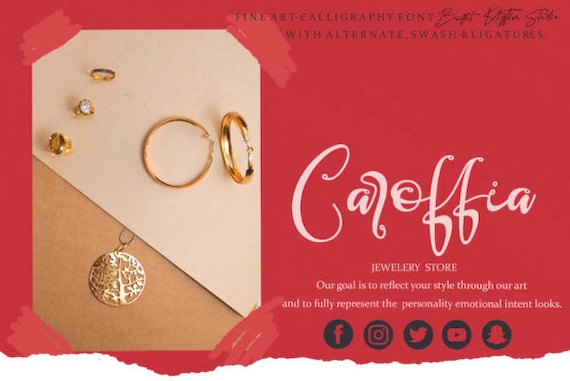
Fairy Font will provide you with a useful design tool. It was created and shared by Bright Rhythm Studio. This Calligraphy font has an elegant refined look along with gorgeous ligatures & alternates.
Fairy Calligraphy Script Font
Font family: Fairy Font
Full font name: Fairy Font
Postscript font name: Fairy-Font
Designer Name: Bright Rhythm Studio